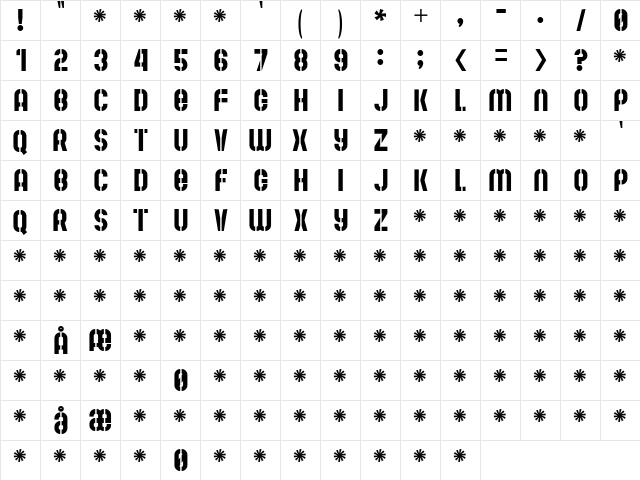
Mute Fruit Regular
Design Context for Mute Fruit Typeface
Mute Fruit takes a measured approach to typography — its balanced proportions and neutral character make it a reliable workhorse for both digital and print work.